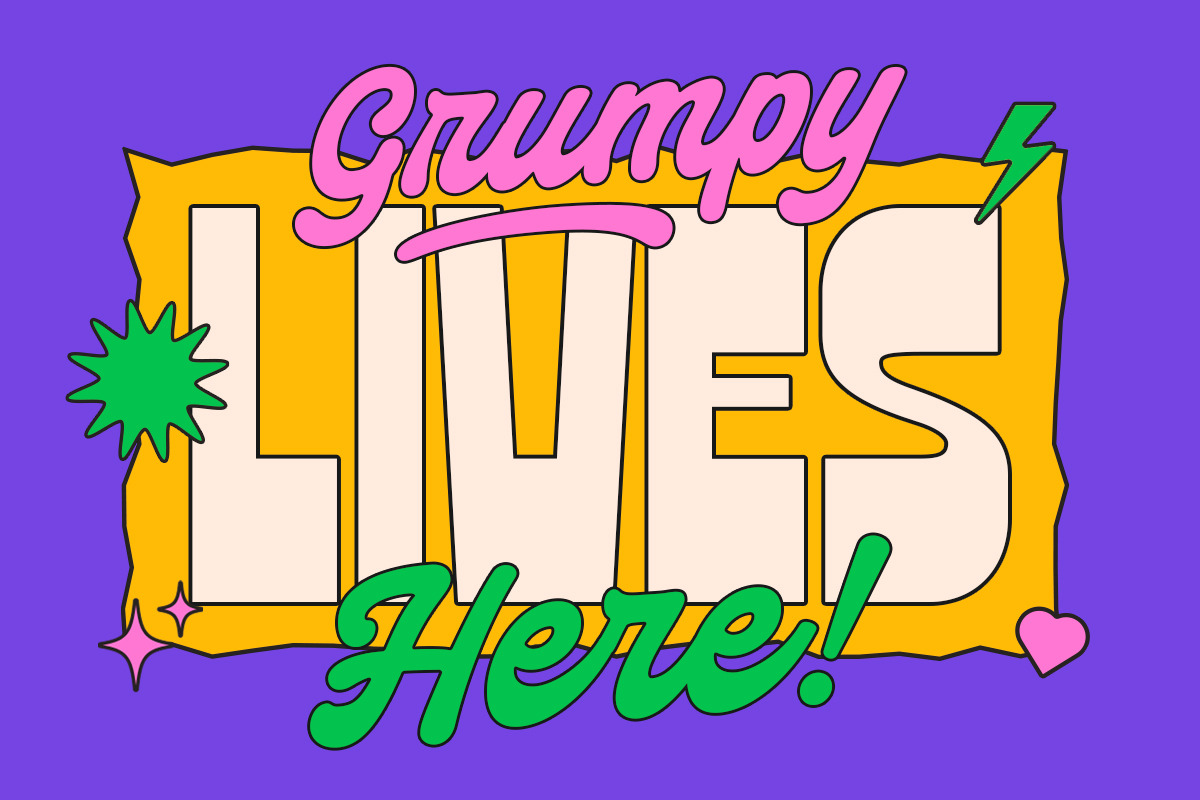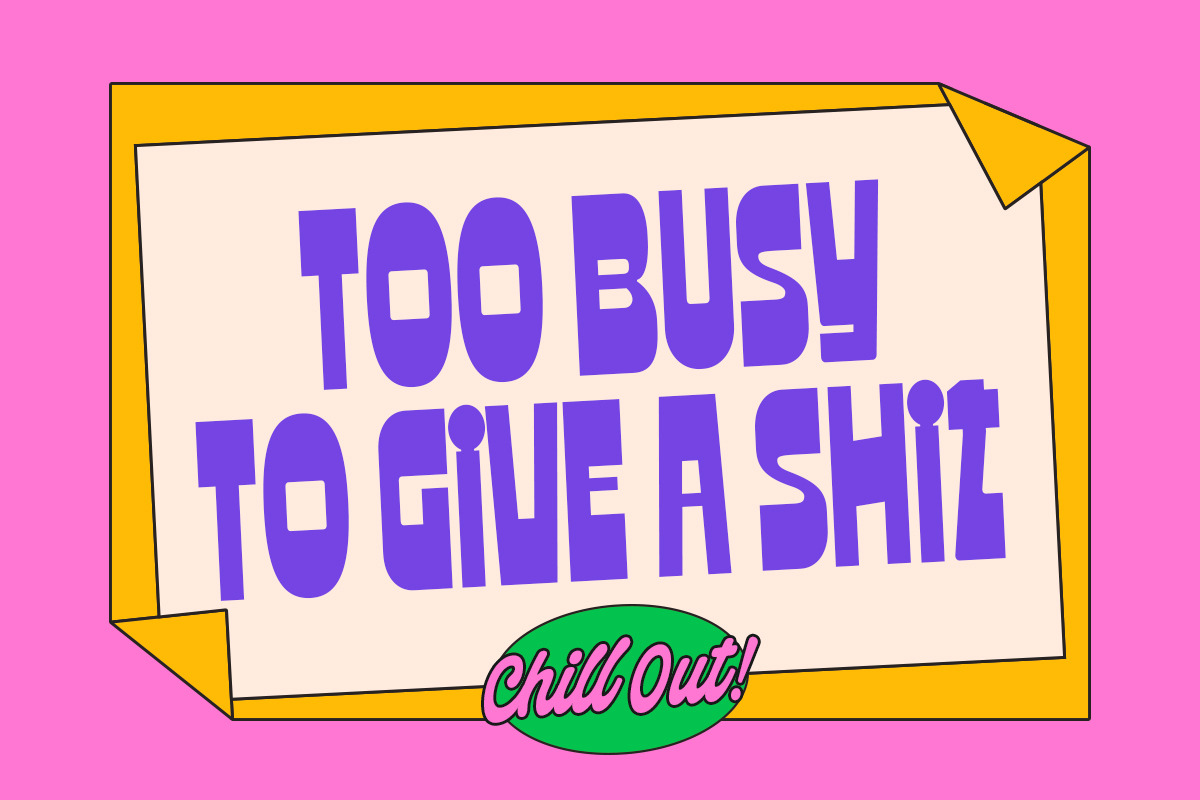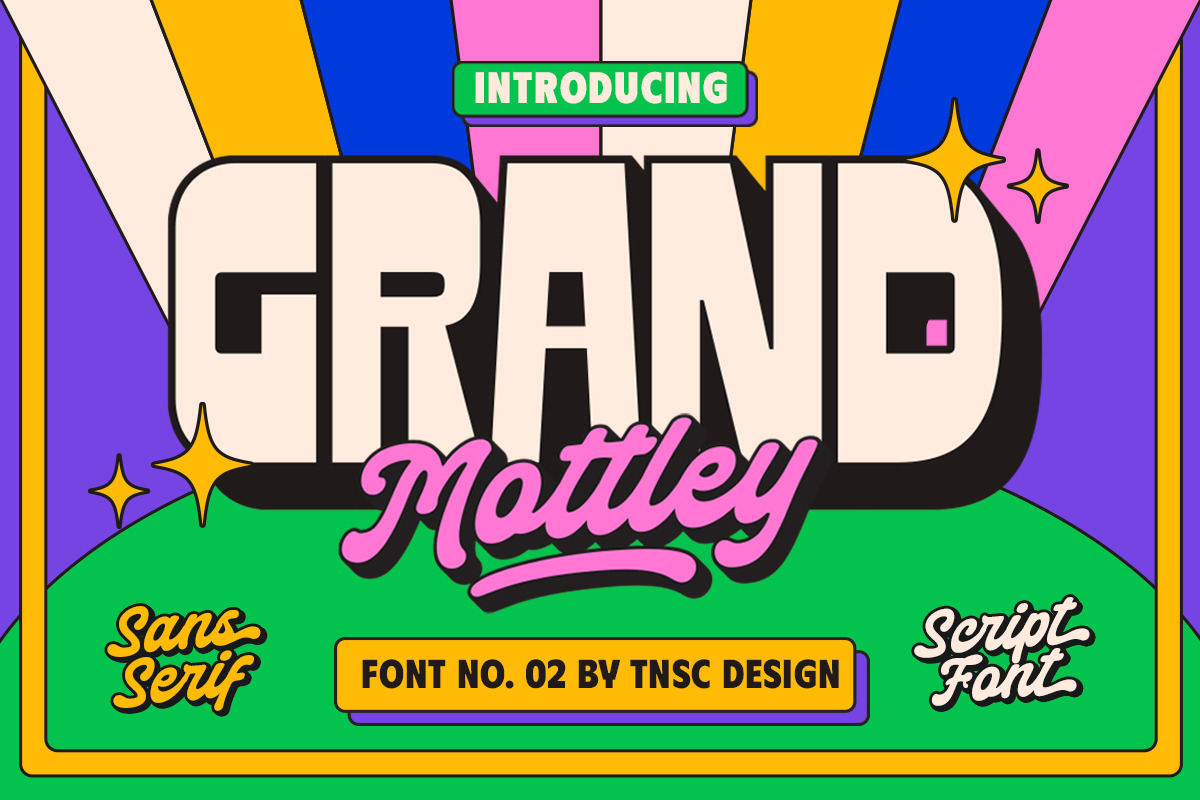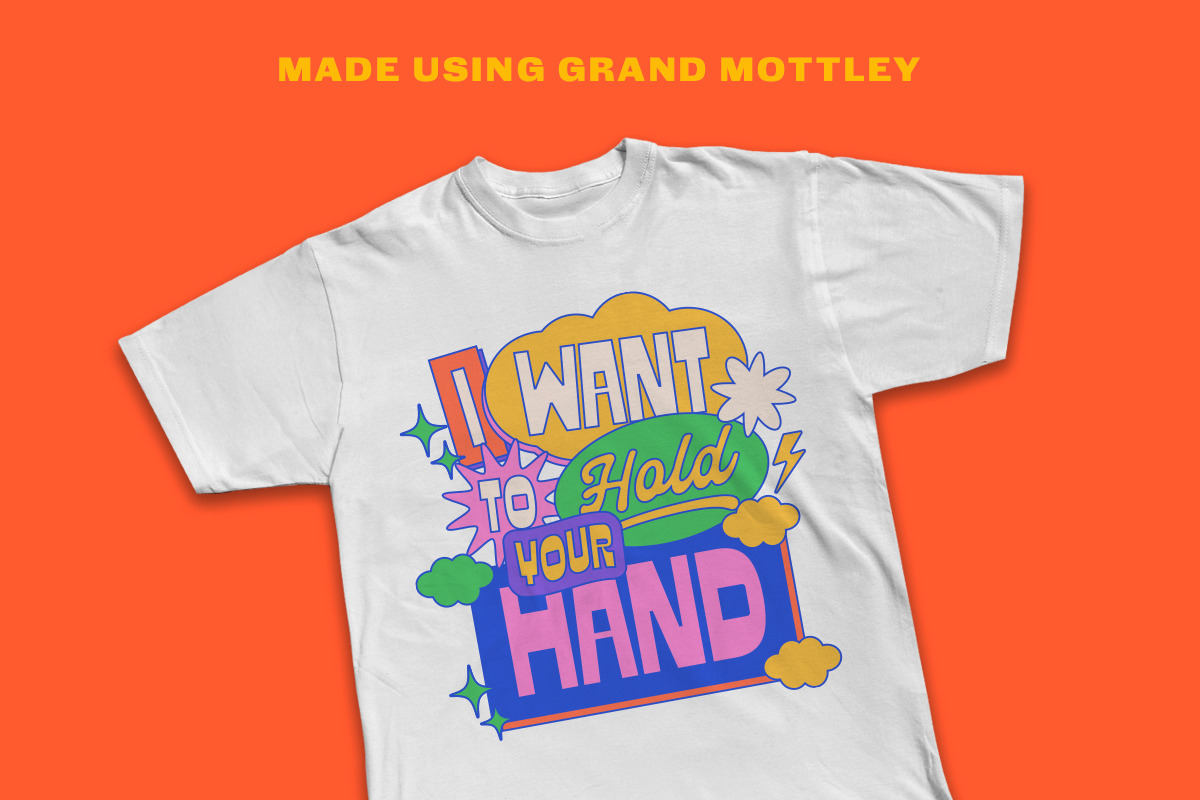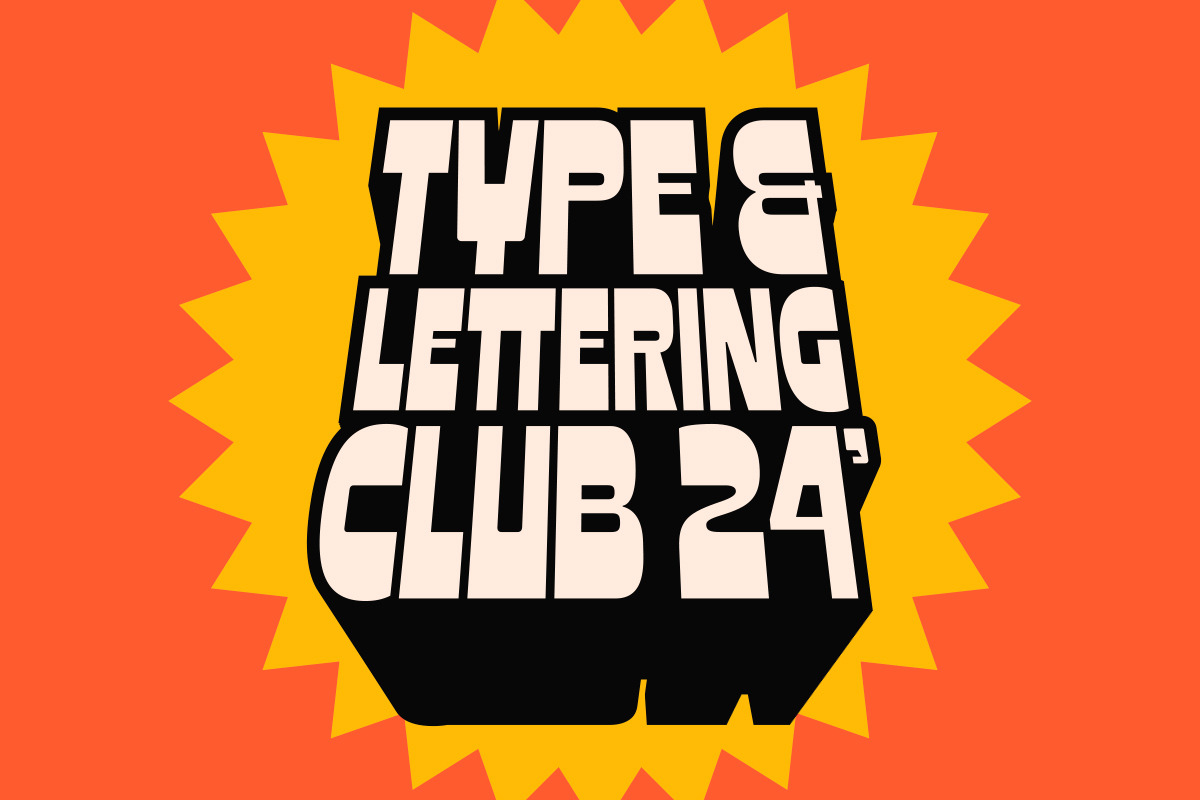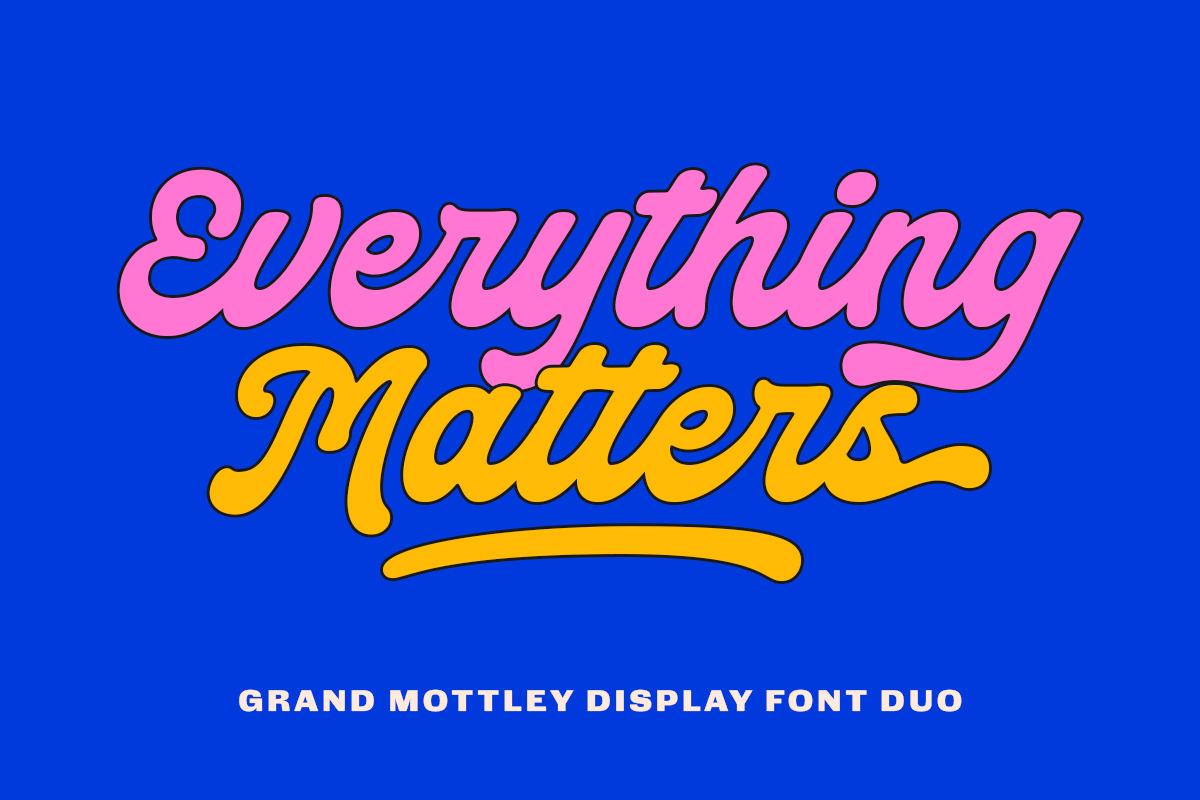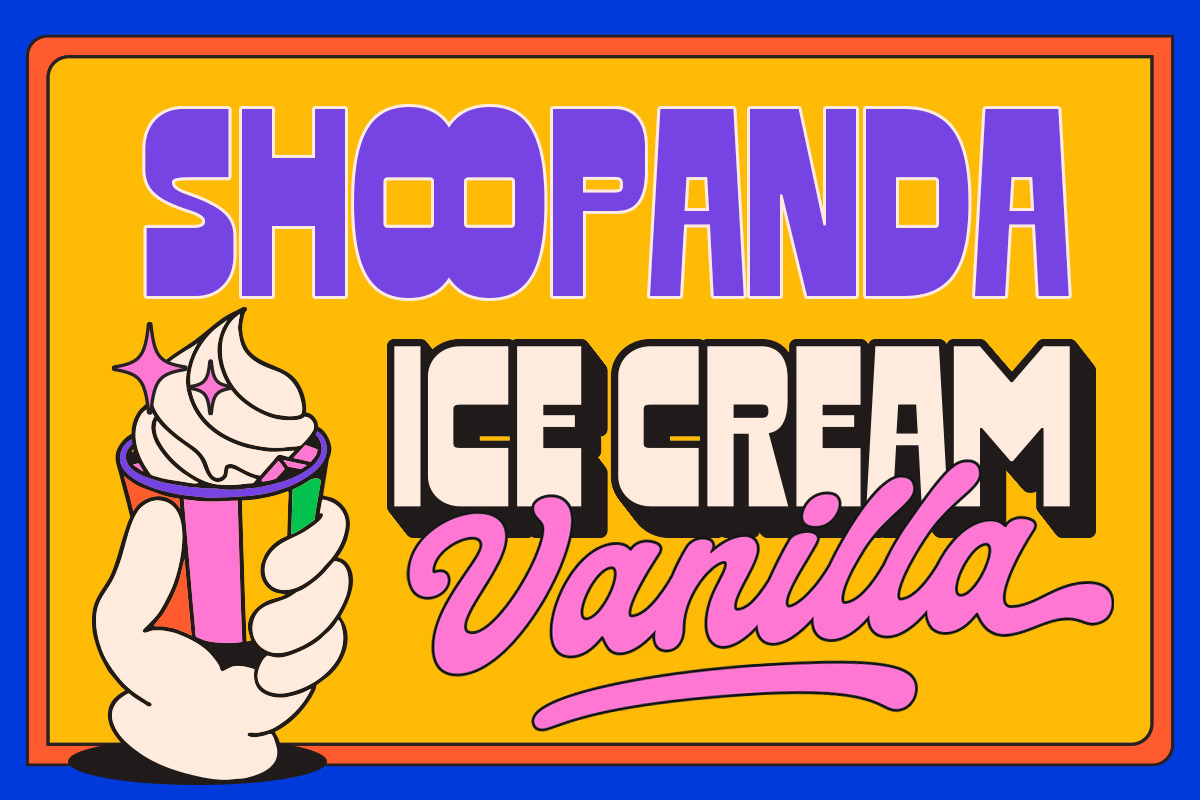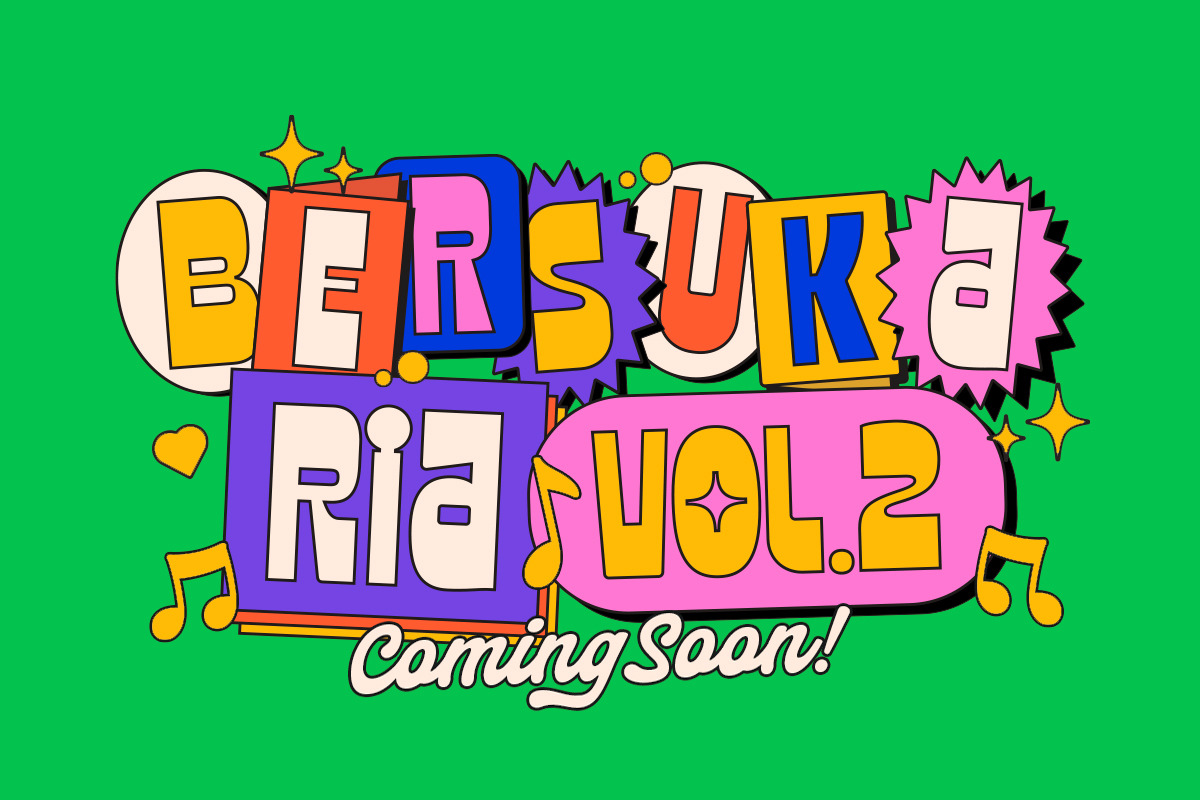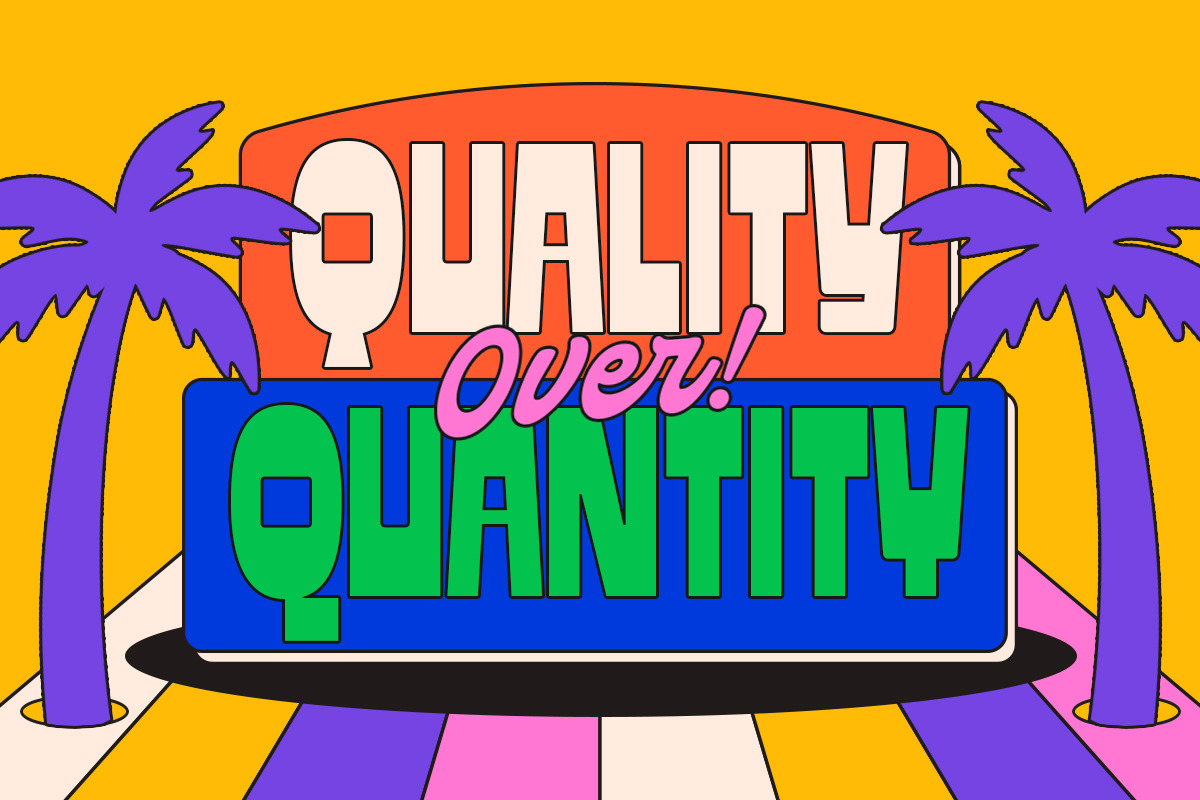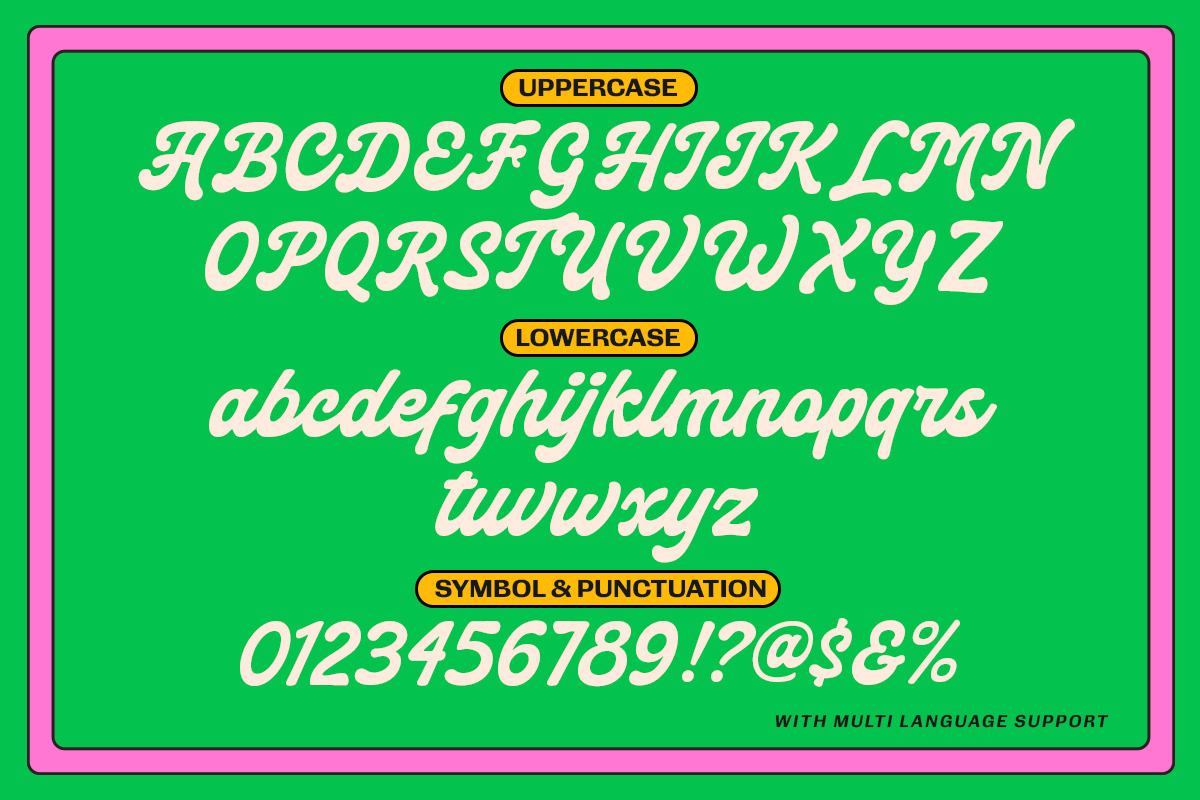
TNSC Grand Mottley - Font Duo
TNSC Grand Mottley - Retro style font with high contrast on sans, and bold script. Very suitable for design titles, posters, music festivals or other contemporary designs. Inspired by 90s hand lettering, retro packaging and retro stuff.